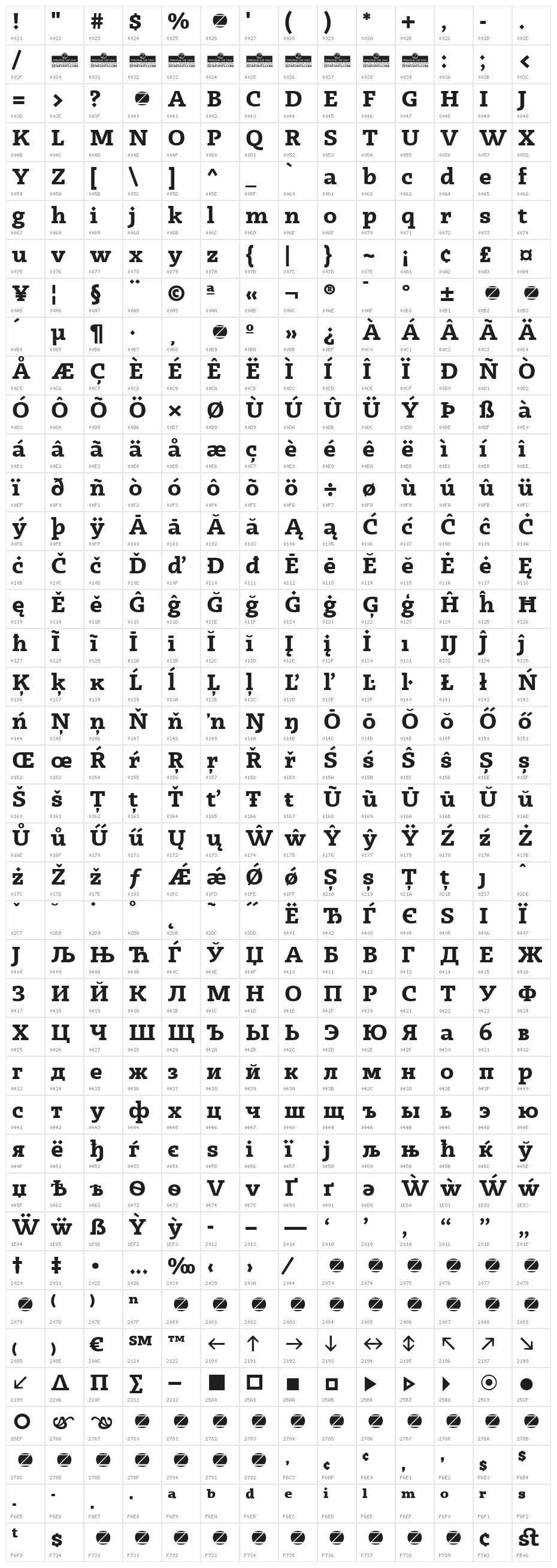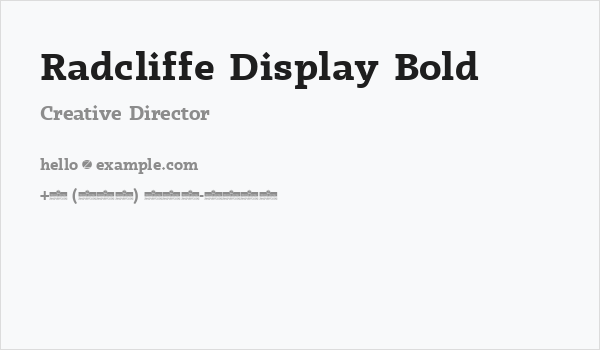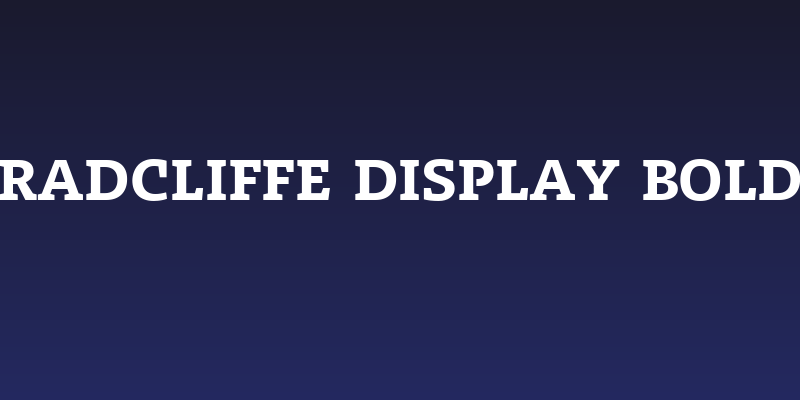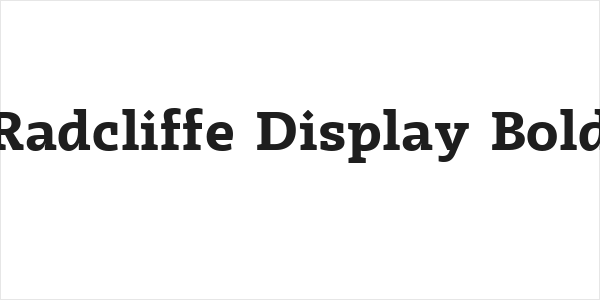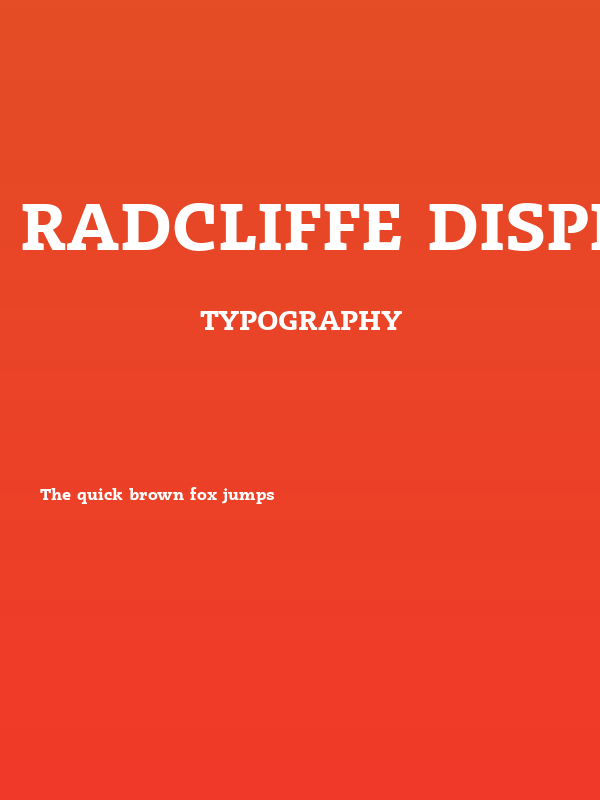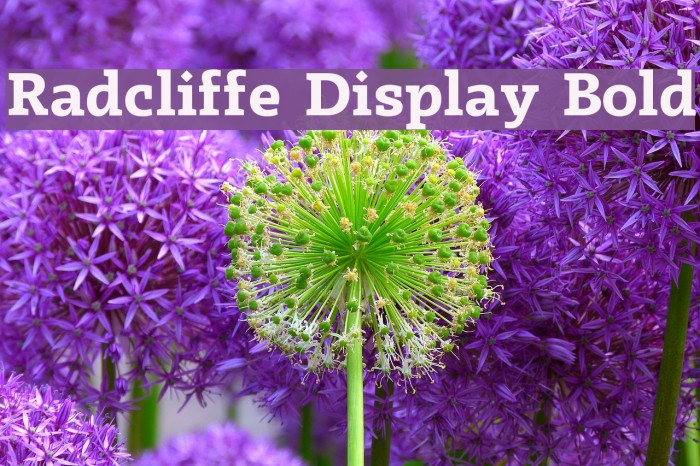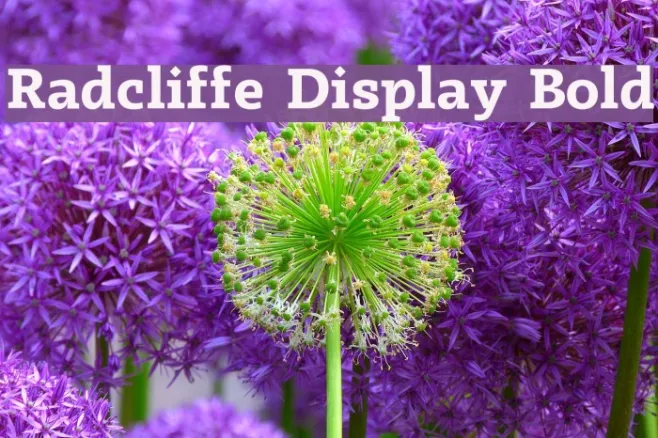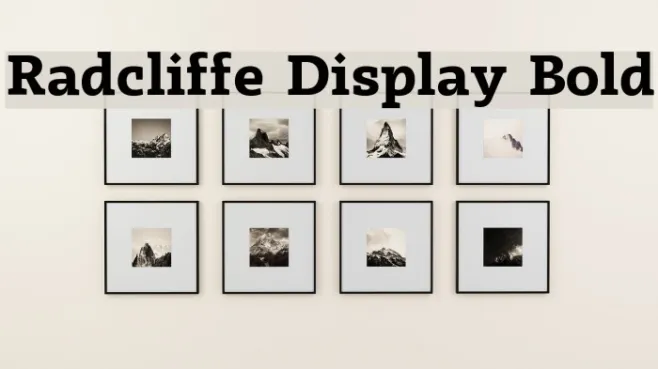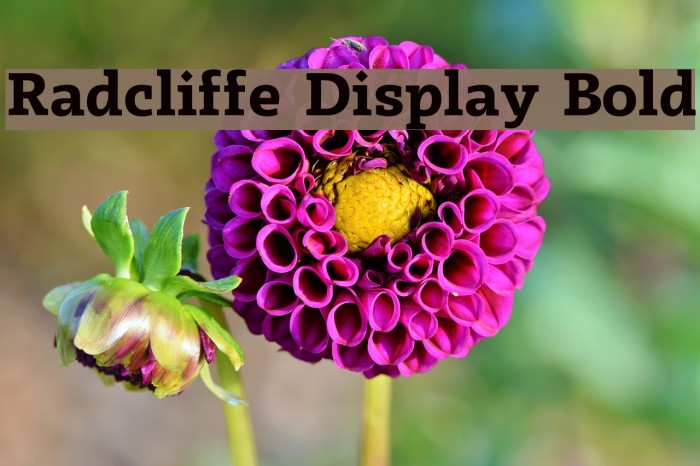
Radcliffe Display Bold Font
Radcliffe Display Bold Description
This font features a bold and robust design with strong, thick strokes that convey a sense of authority and presence. The serifs are pronounced, adding a classic touch to the overall modern aesthetic. Each character is well-defined, with a consistent weight that ensures readability across various sizes. The uppercase letters are particularly striking, making them ideal for headlines or titles. The lowercase letters maintain the same boldness, ensuring a cohesive look when used together. The numerals and special characters are equally bold, with clear distinctions that enhance their legibility.
| Proposed Projects | This font is perfect for projects that require a strong visual impact, such as branding, advertising, posters, and editorial design. |